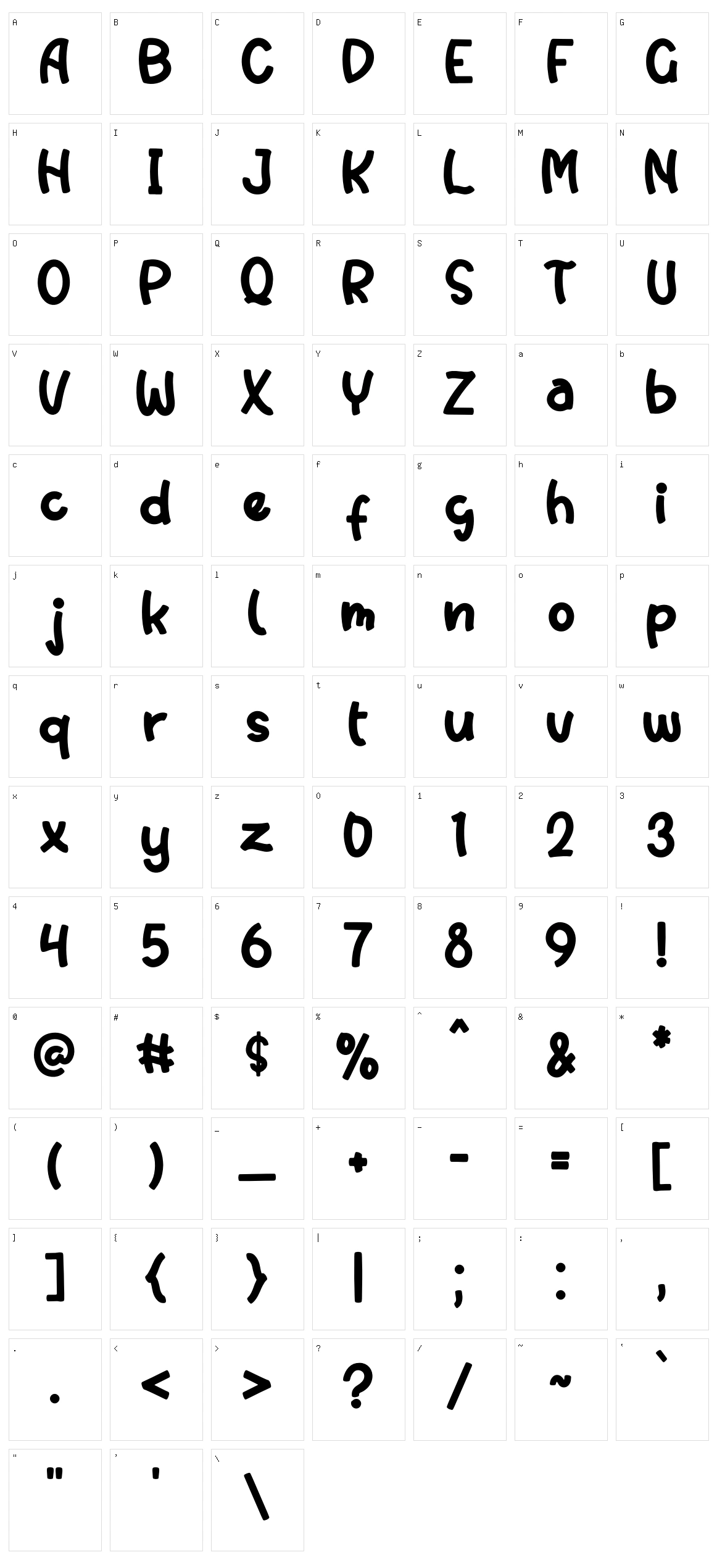
The free font Jacky Boys is carefully designed by Perspectype Studio - Letterena.com, showcasing a thoughtful balance of creativity and usability and falls under the Cartoon font style. When you download the ZIP file, it contains only 30.27 KB of font files, making it lightweight and quick to download. Please review the license details below to understand permitted usage and distribution rights. If license information is not available, we recommend using this font for personal projects only or contacting the author directly for commercial usage permissions.